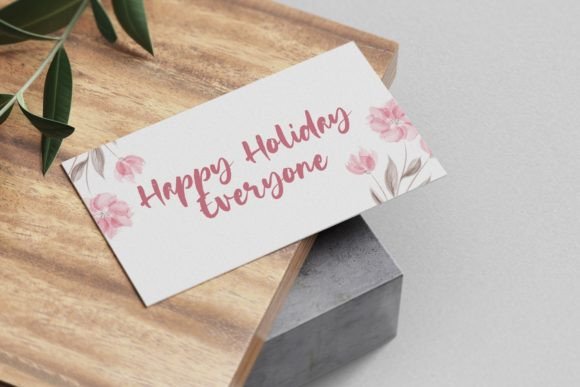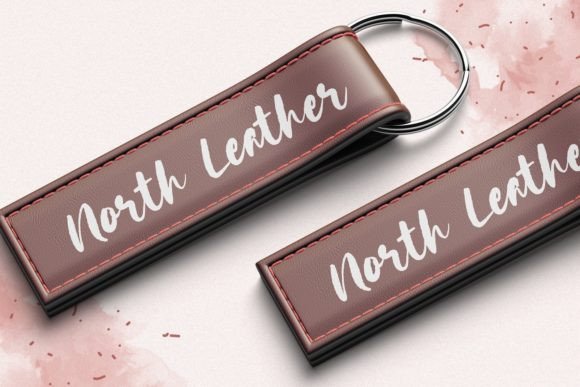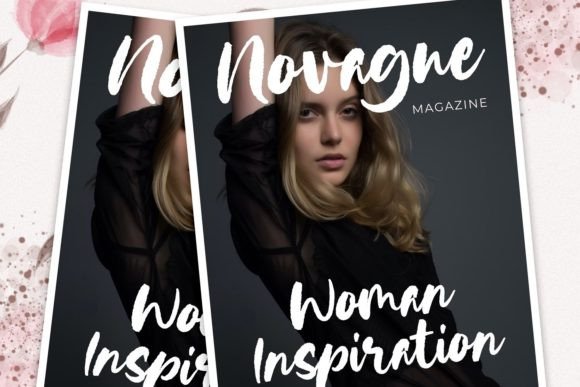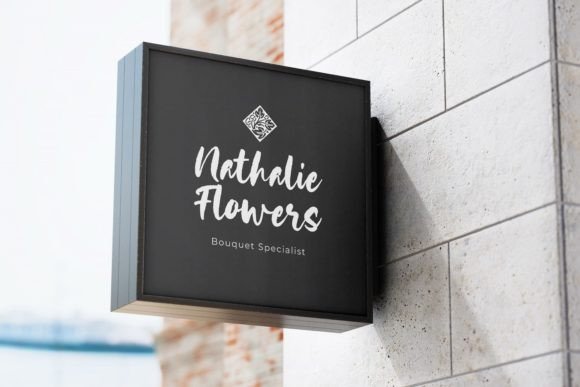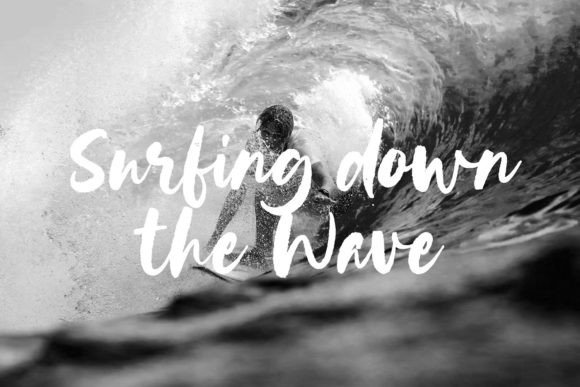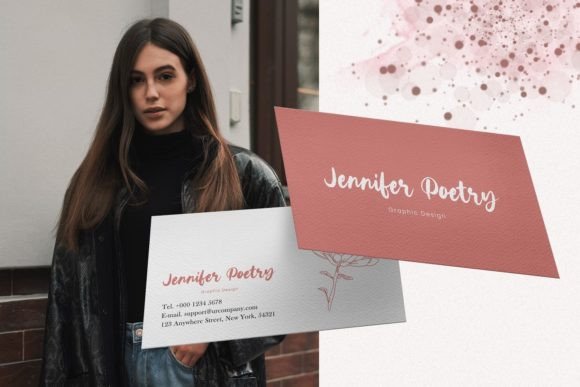
Introduction to Ping Typeface Font
As designers, we’ve all been there – staring at a blank canvas, trying to bring our creative vision to life. But sometimes, all it takes is a single font to spark inspiration and set our imagination ablaze. For me, that font is Ping Typeface Font – a stunning, textured handbrush font that adds a touch of elegance to any design. With its flowing lines and beautiful style, Ping Typeface Font is the perfect addition to any creative project.
Whether you’re working on a branding project, designing a website, or creating a social media graphic, Ping Typeface Font is a valuable resource that can elevate your design to the next level. Its high-quality texture and transparent background make it easy to use and customize, giving you the flexibility to experiment with different designs and ideas. And the best part? It’s free to download, making it an accessible design resource for designers of all levels.
Key Features of Ping Typeface Font
- High-quality design resource ideal for creative projects, offering a unique and modern aesthetic.
- Features a transparent background, allowing for seamless integration with any design element or background.
- Comes in a single weight, making it perfect for projects where a clean and minimalist approach is desired.
- Designed to be highly legible, making it an excellent choice for body text, headings, and titles in creative projects.
Honest Review: Ping Typeface Font
As a designer, I’m always on the lookout for high-quality design resources to elevate my creative projects. Recently, I stumbled upon the Ping Typeface Font, and I’m excited to share my honest review with you.
What works well: ✨ The Ping Typeface Font is incredibly versatile, making it perfect for a wide range of creative projects. Its clean and modern design ensures it pairs well with any background, including a transparent background. I love how it adds a touch of sophistication to my designs without overpowering them.
Here are some of the font’s key features:
- Transparent background option for added flexibility
- Works well in both digital and print applications
What doesn’t work well: ⚠️ While the Ping Typeface Font is excellent in most situations, I did find it a bit challenging to use in small text sizes. The font can become difficult to read, especially on lower-resolution displays.
Overall, I’m impressed with the Ping Typeface Font. Its high quality, versatility, and ease of use make it an excellent addition to any designer’s toolkit. While it may have some limitations, I believe it’s a valuable design resource worth exploring.
Ping Typeface Font
The Ping Typeface Font is a free download that offers a high-quality design resource perfect for creative projects. With its unique style and transparent background, it’s ideal for designers looking to add a touch of elegance to their work.
Tips for Getting the Most Out of Ping Typeface Font
To get the most out of Ping Typeface Font, try combining it with other design elements, such as images and graphics, to create a visually appealing design. You can also experiment with different font sizes and styles to create a unique look.
Ping Typeface Font is ideal for use in creative projects such as logos, brochures, and business cards. It’s also great for use in digital design, such as website headers and social media graphics.